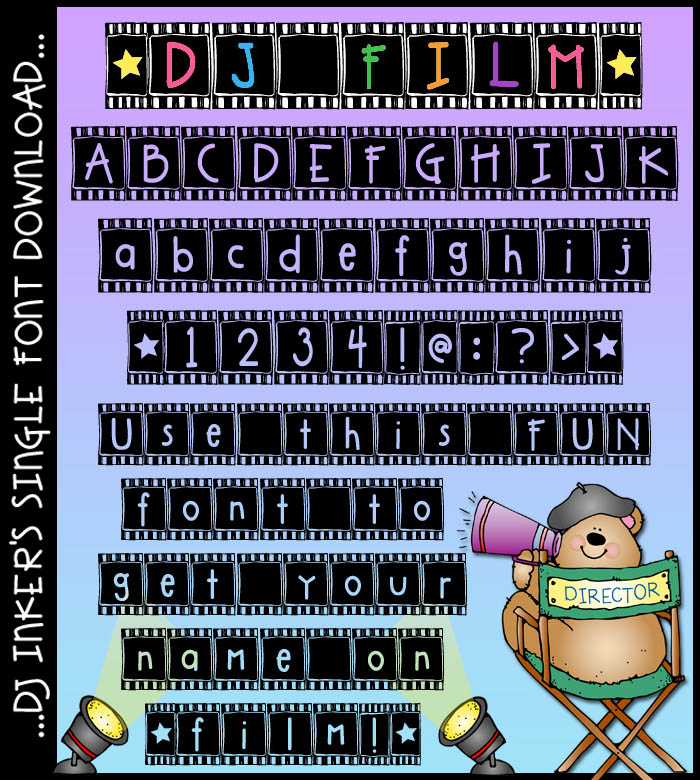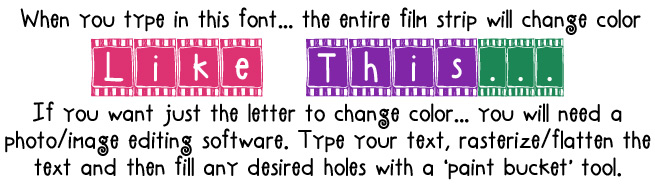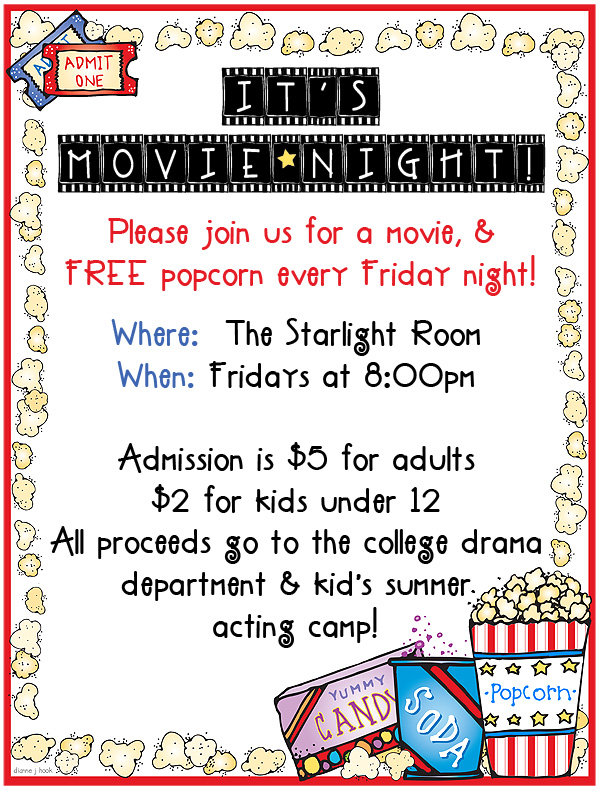
DJ Film Font Download
Haven't you always wanted to see your name in the movies?  Well, with this fabulous font, you can do just that! You'll look like a star no matter what you type!  DJ Film is great for movie night fliers, sleepover invites, party time, or drama and film classes.  This font looks ravishing in black over brightly colored backgrounds. Now, lights, camera, action!